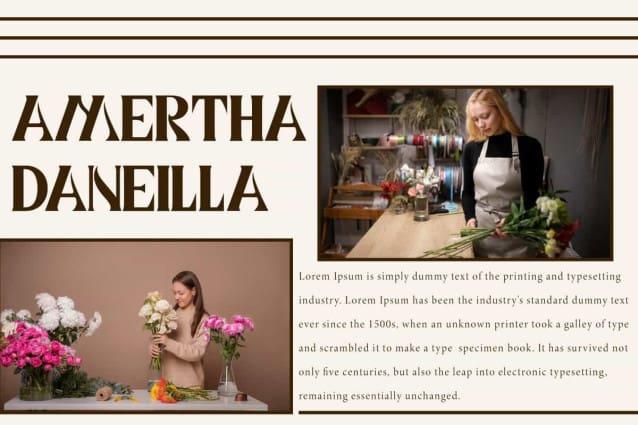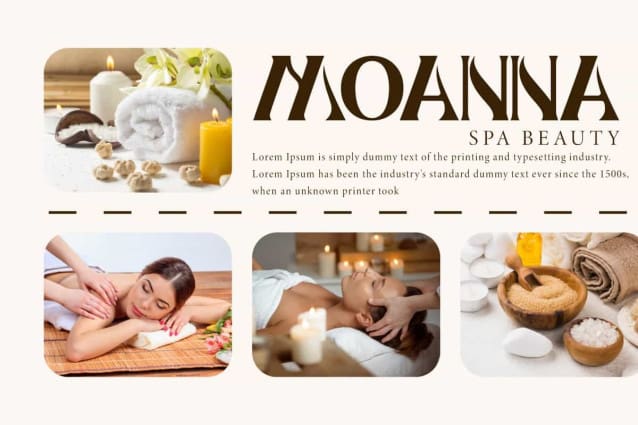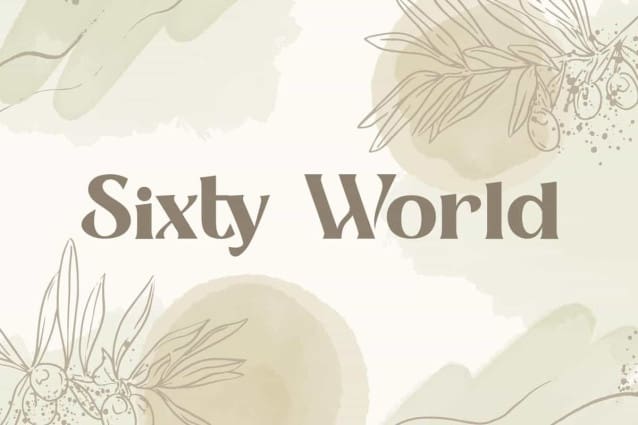
Sixty World Font
Sixty World Font is a unique serif font that provides harmony and this font has quite thick strokes. This font is suitable for branding, brochure, cover, greeting card, header, label, lettering, logo design, logotype, magazine, mockup template, packaging, pamphlet, poster, quotes, t-shirt, website, and more!
Sixty World Font includes full set for Uppercase and Lowercase Basic Characters, Numbers, Punctuation and Symbols. Sixty World Font presents creative creations in certain letters. This font will create the perfect font so that it will be suitable for advertisement, bakery, beauty product, boutique, crafts, event or wedding organizer, fashion, photography, restaurant, spa, travel agency, etc.